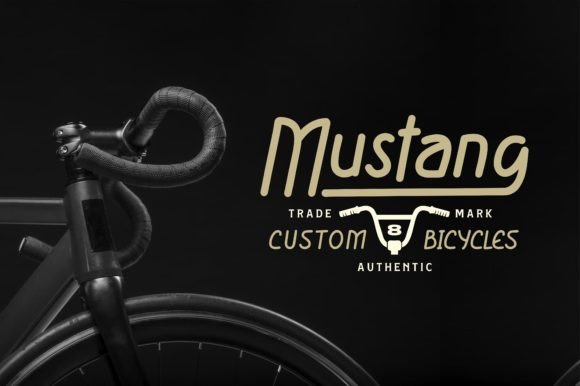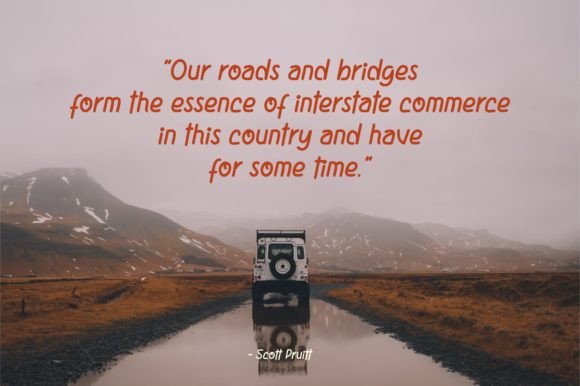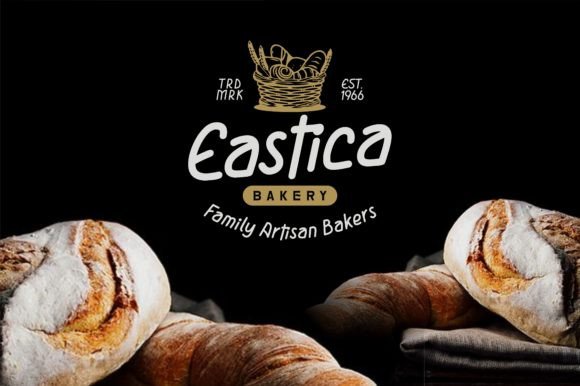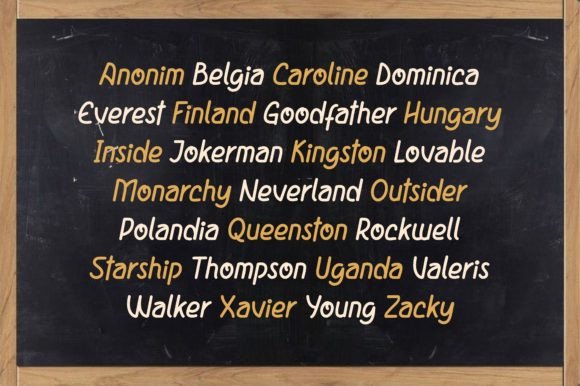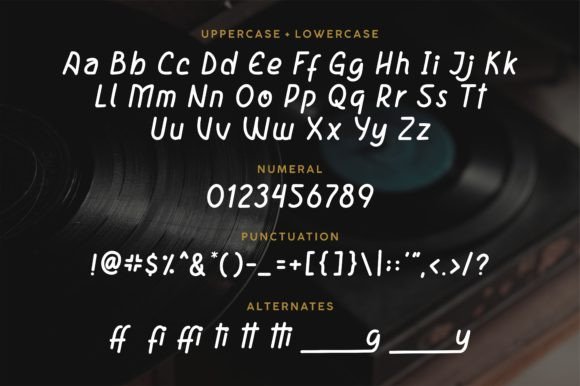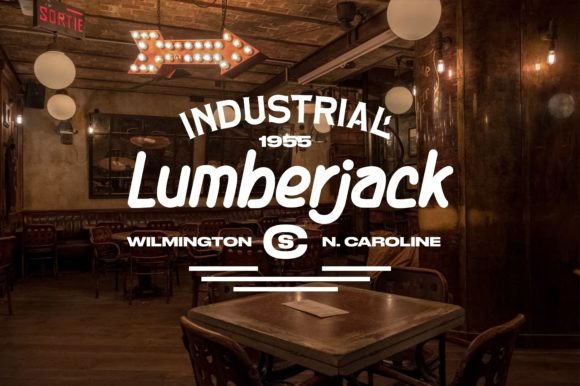
Discover the Timeless Charm of Billevans Font
Are you a designer or crafter looking for a font that can add a touch of vintage allure to your artistic endeavors? Look no further than Billevans, a beautifully crafted monoline font that is perfect for bringing a classic touch to contemporary design. In this article, we’ll explore the unique features of Billevans and how it can elevate your logotype, badges, and typography to the next level.
The Unique Features of Billevans Font
Billevans is a monoline font that boasts a timeless charm, making it an excellent choice for designers and crafters who want to add a touch of elegance to their projects. Its vintage allure is perfectly balanced with a modern twist, making it versatile enough to be used in a wide range of design applications. Whether you’re creating a logotype, badge, or typography, Billevans is the perfect design element to enhance your creative endeavors.
Crafted for Artistic Endeavors
Billevans is more than just a font – it’s a design element that can bring your artistic endeavors to life. Its classic touch is perfectly suited for designers and crafters who want to add a touch of sophistication to their projects. With Billevans, you can create stunning logotypes, badges, and typography that will leave a lasting impression on your audience.
The Benefits of Using Billevans Font
So, what are the benefits of using Billevans font in your design projects? Here are just a few:
- Timeless charm: Billevans has a timeless charm that will never go out of style, making it an excellent choice for designers and crafters who want to create classic designs that will stand the test of time.
- Vintage allure: The font’s vintage allure adds a touch of elegance and sophistication to any design project, making it perfect for creating logotypes, badges, and typography.
- Versatility: Billevans is a versatile font that can be used in a wide range of design applications, from branding and advertising to packaging and web design.
| Font Name | Billevans Font |
| Author | Typenoise |
In conclusion, Billevans font is a beautifully crafted monoline font that is perfect for designers and crafters who want to add a touch of vintage allure to their artistic endeavors. With its timeless charm, versatility, and ease of use, Billevans is an excellent choice for creating stunning logotypes, badges, and typography. Whether you’re a seasoned designer or just starting out, Billevans is a font that is sure to inspire your creativity and take your design projects to the next level.
Experience the Beauty of Billevans